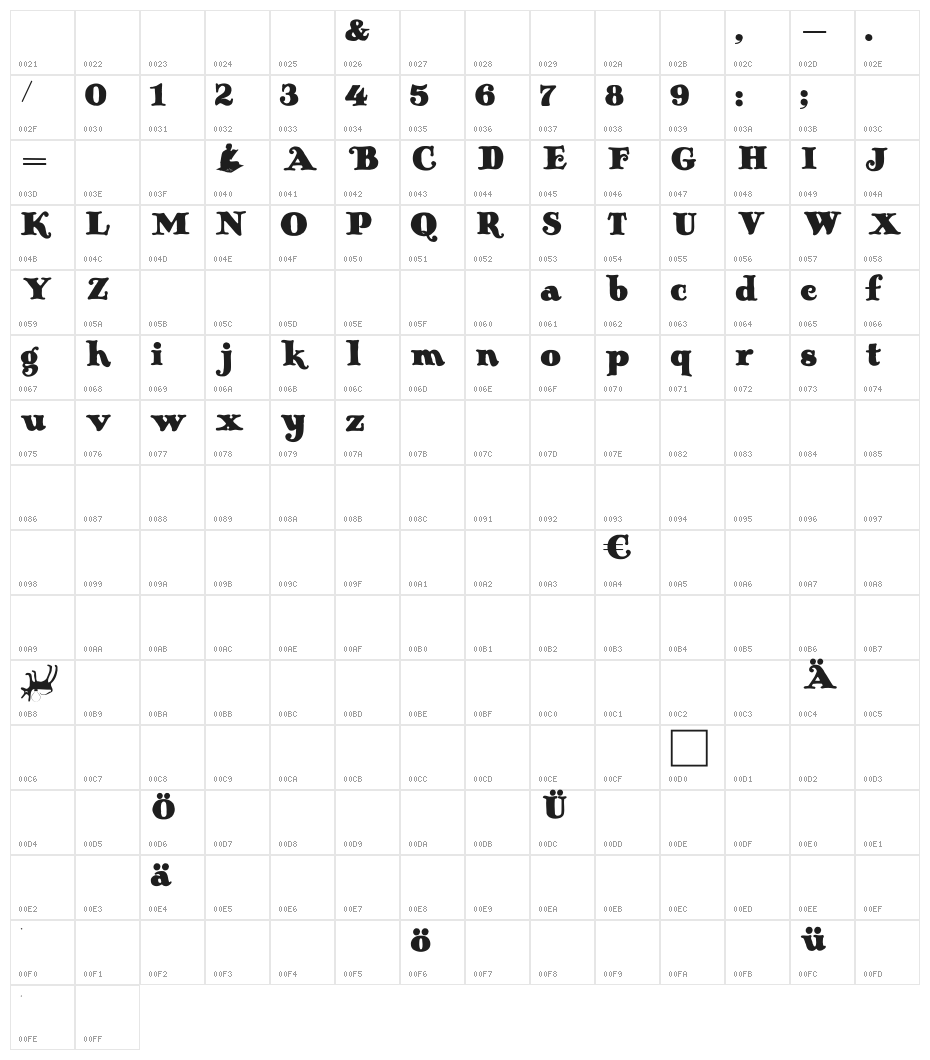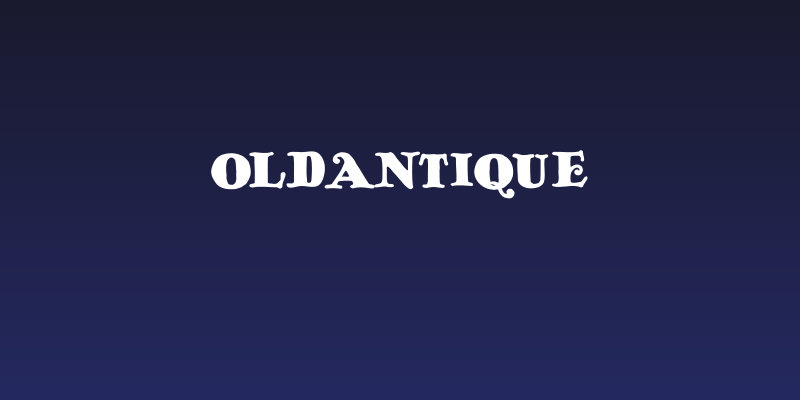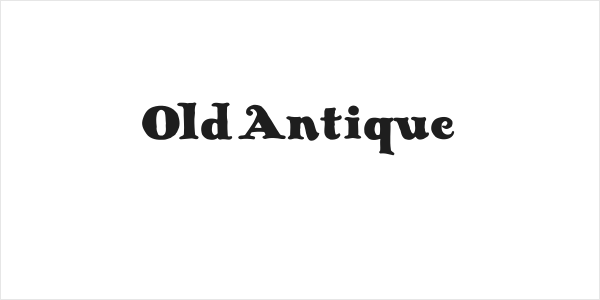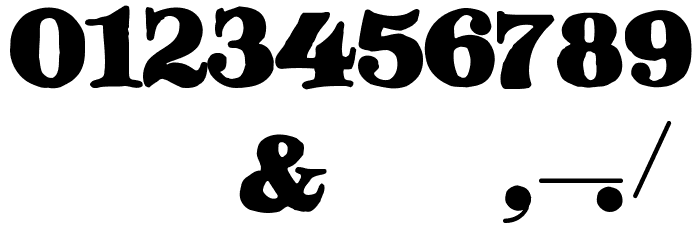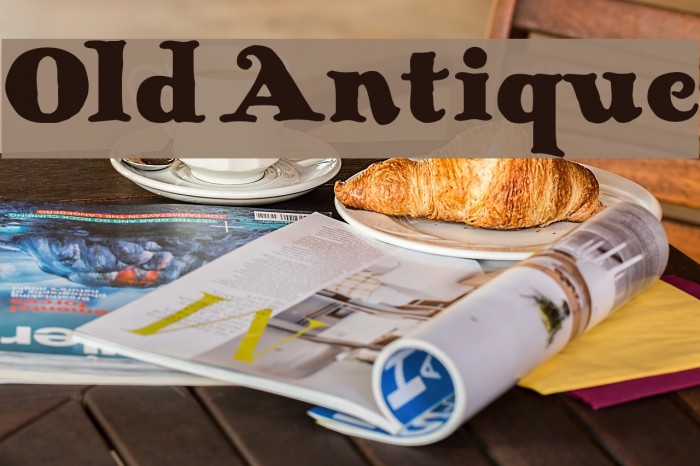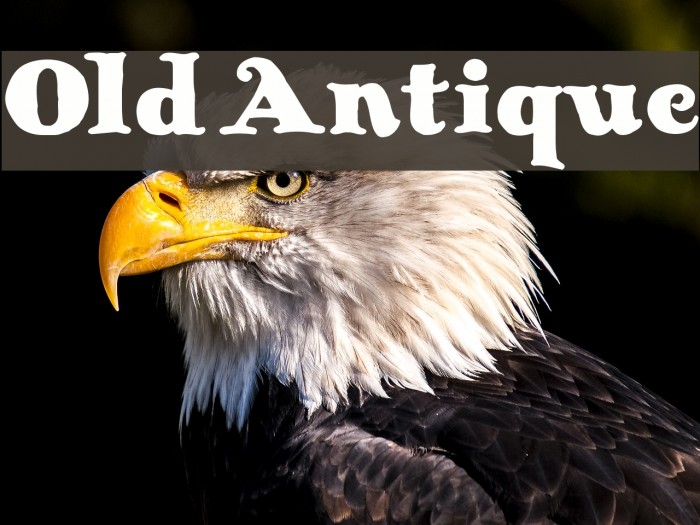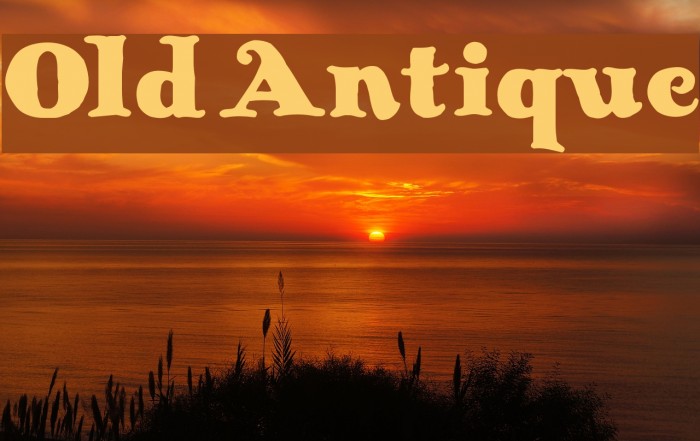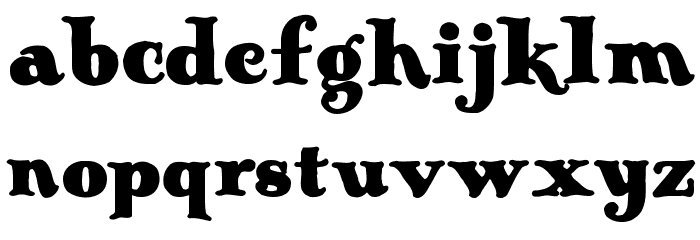
OldAntique Font
OldAntique Description
This font exudes a vintage charm with its bold, decorative style. The characters are robust and feature intricate detailing, reminiscent of classic woodcut or letterpress printing. The uppercase letters are particularly striking, with strong serifs and a slightly condensed form that gives them a commanding presence. The lowercase letters maintain the same decorative flair, with unique curves and flourishes that add to the overall antique feel. Numbers and special characters are equally bold and ornate, making them stand out in any design. The font's high contrast between thick and thin strokes enhances its dramatic appearance, making it suitable for projects that require a touch of historical elegance.
| Proposed Projects | Ideal for vintage-themed posters, book covers, branding for historical or artisanal products, and decorative signage. |